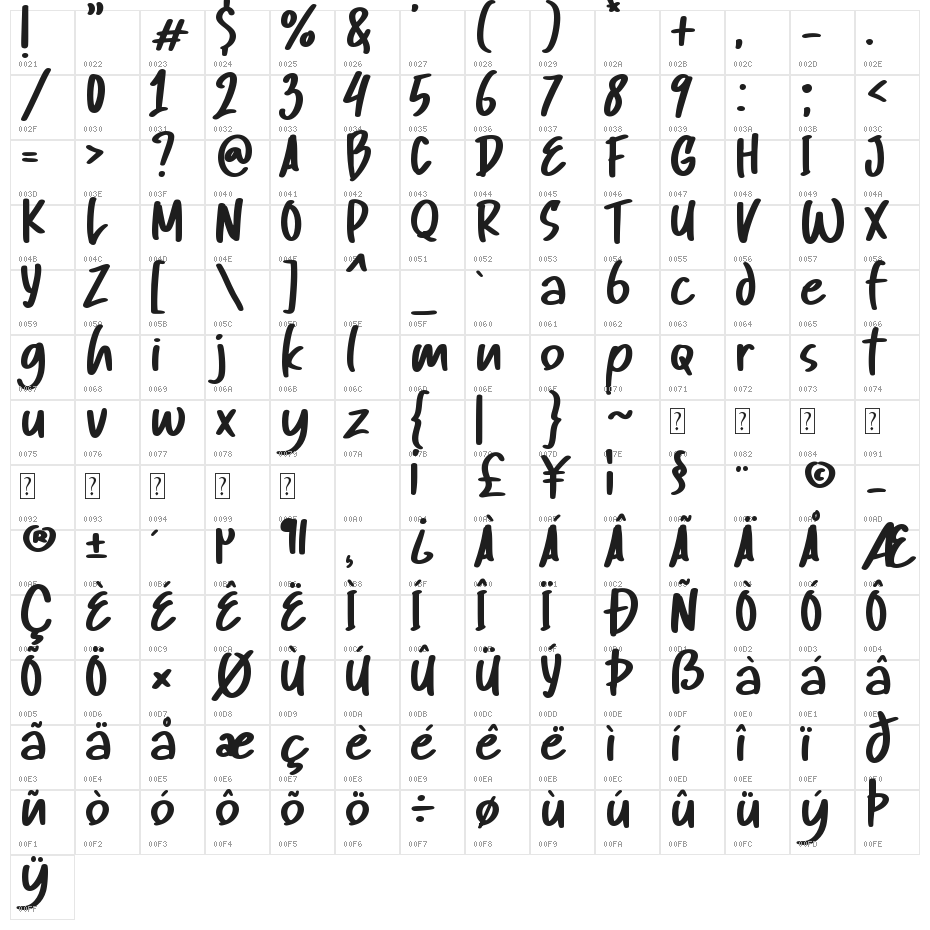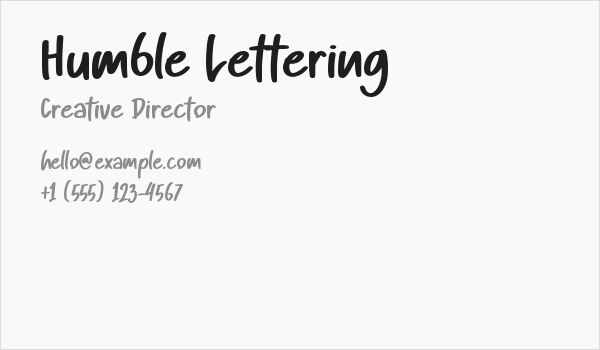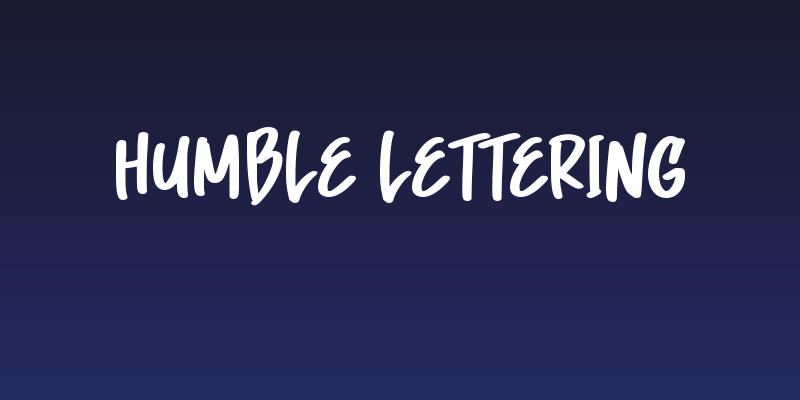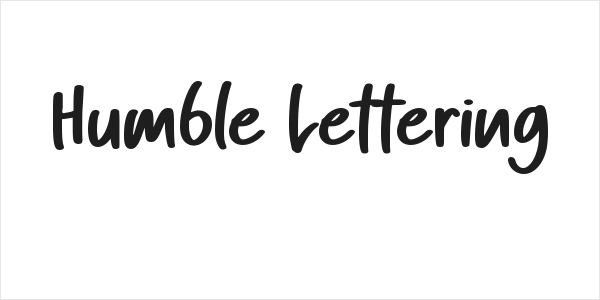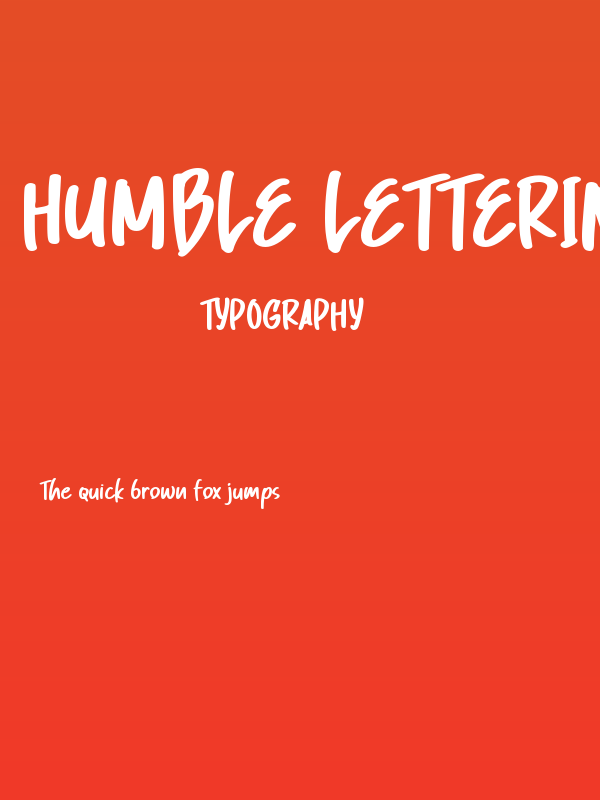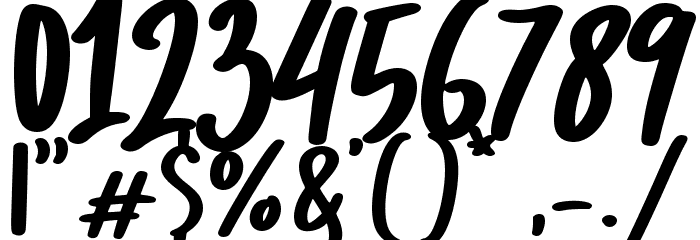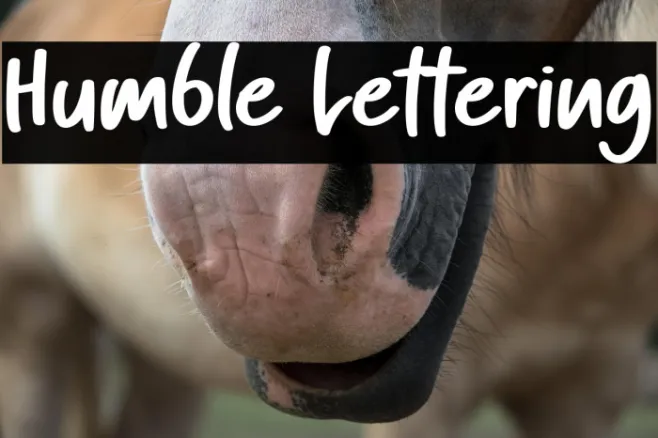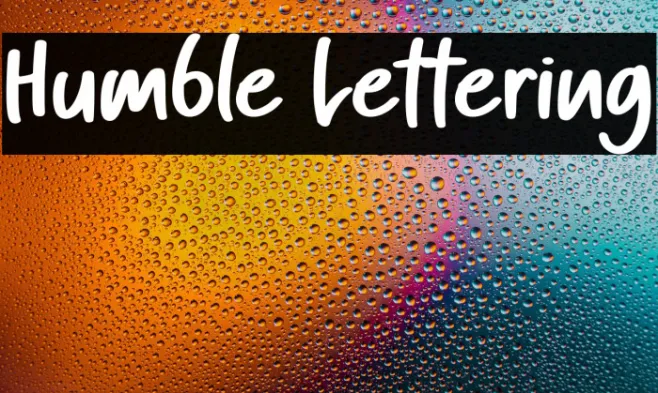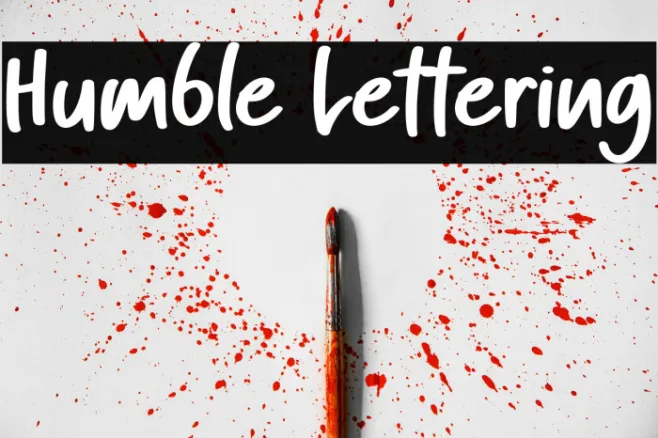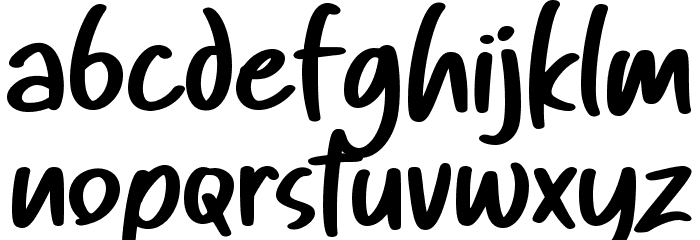
Humble Lettering Font
Humble Lettering Description
This font features a bold and playful handwritten style with a lively and energetic appearance. The letters are crafted with a consistent stroke width, giving them a uniform look while maintaining a casual and friendly vibe. The uppercase and lowercase letters are well-balanced, with a slight slant that adds to the dynamic feel. The numerals and special characters are designed to match the overall aesthetic, making them suitable for a variety of creative applications. The font's informal style makes it perfect for projects that require a personal touch.
| Overall Style | Playful, Casual |
| Proposed Projects | Ideal for greeting cards, posters, social media graphics, and branding projects that require a personal and friendly touch. |